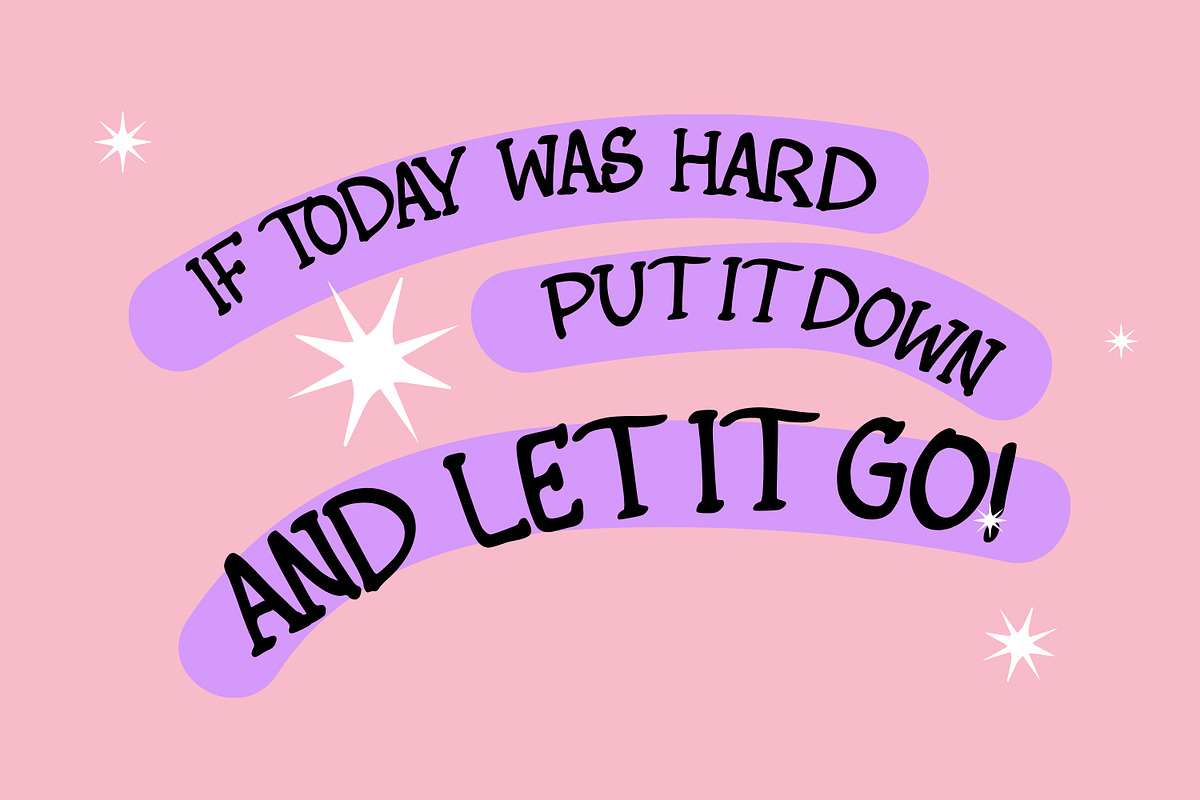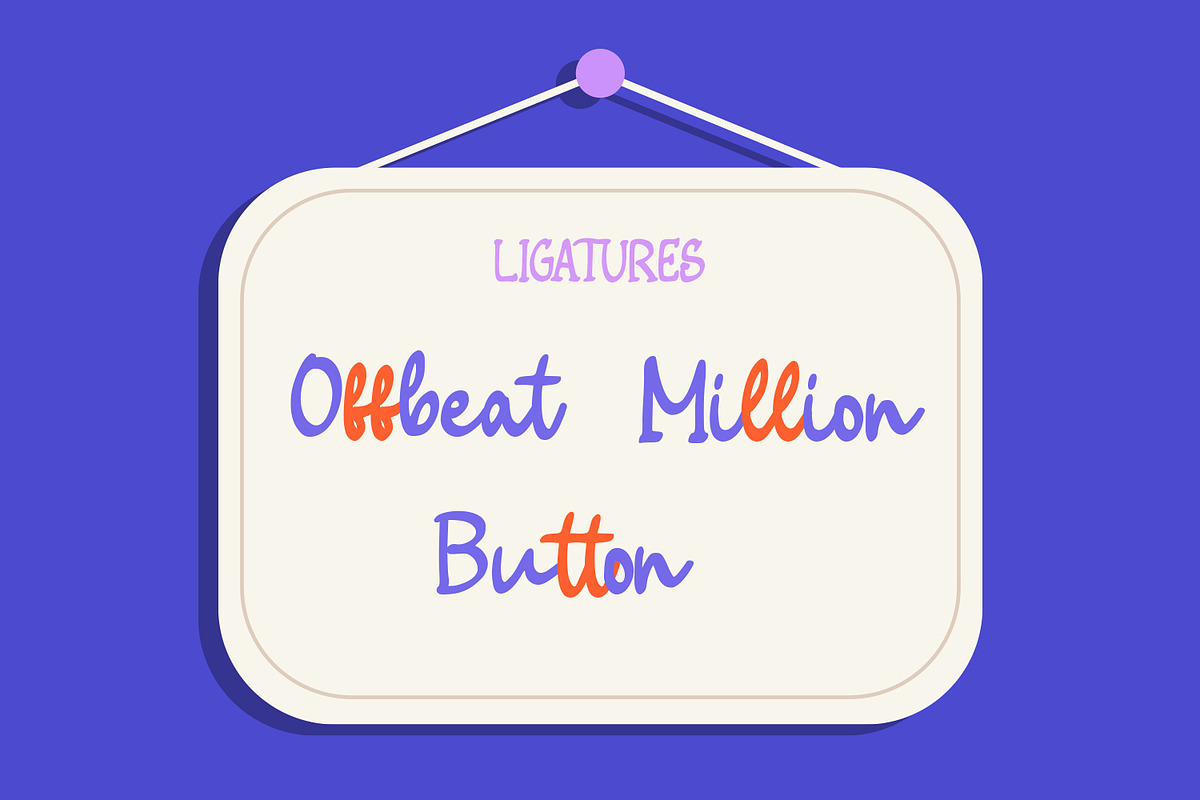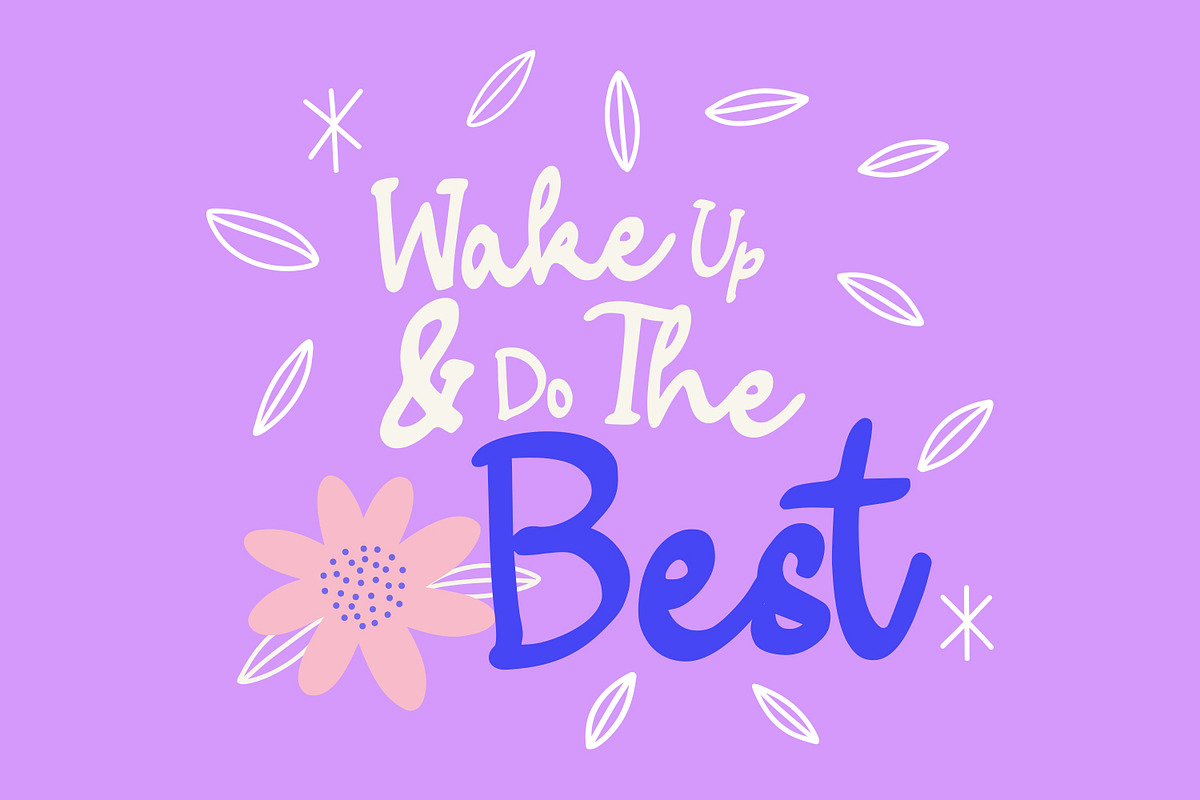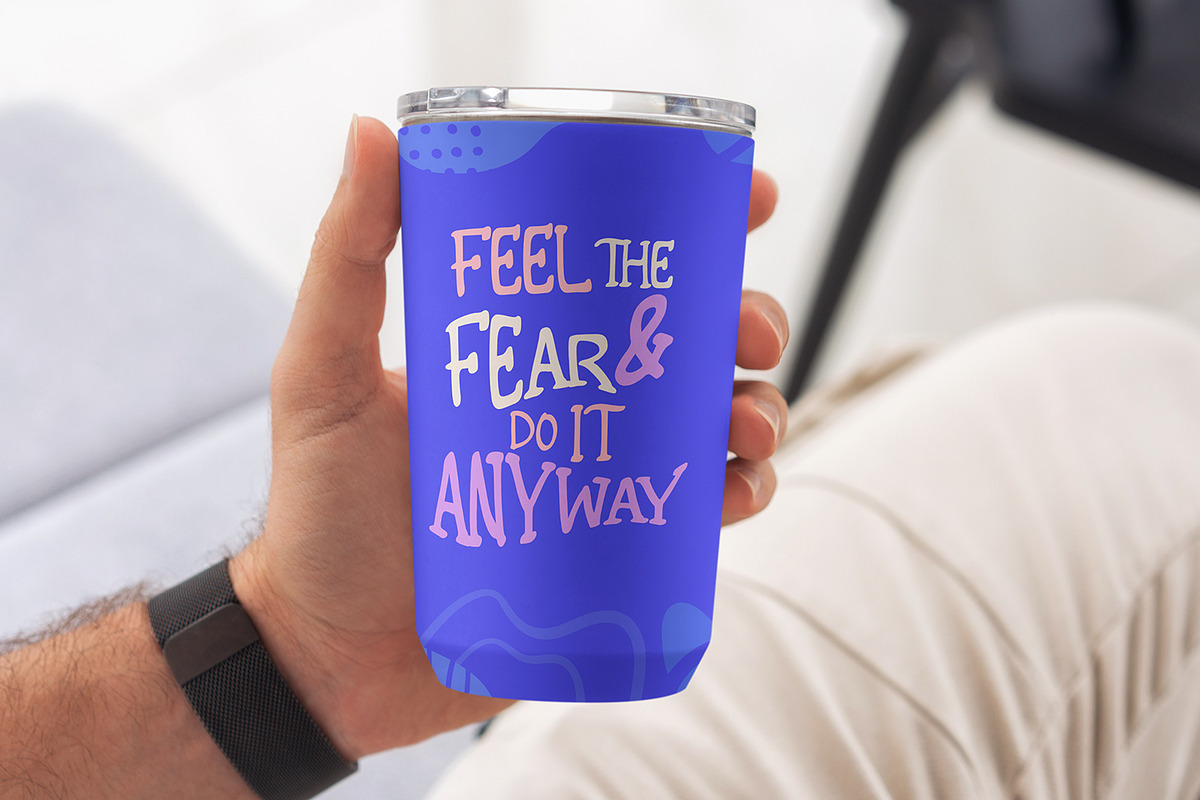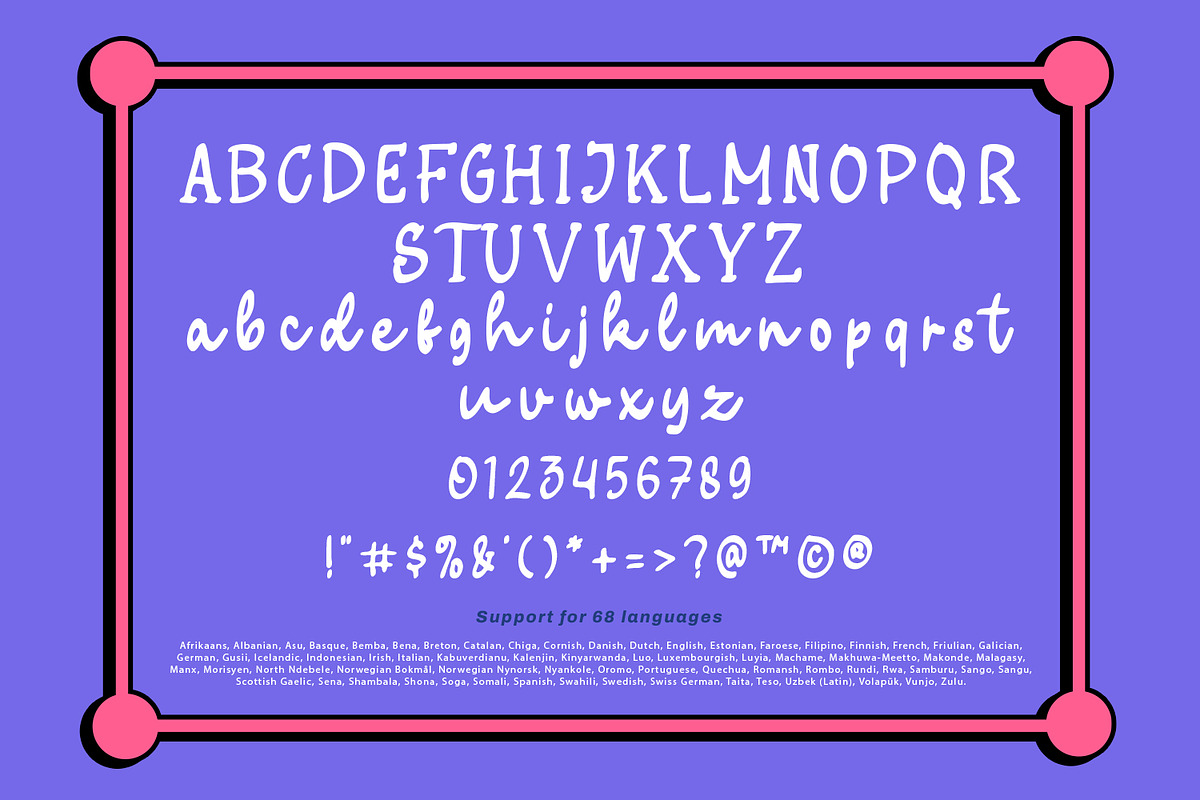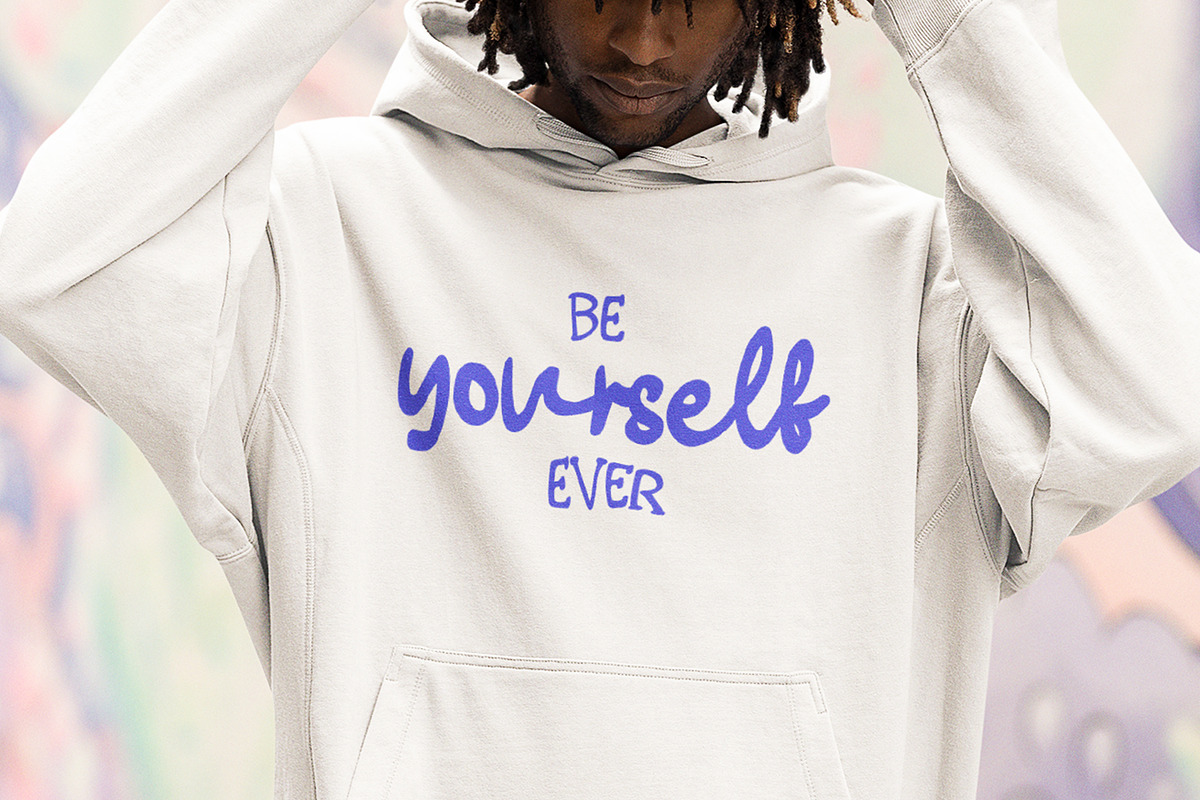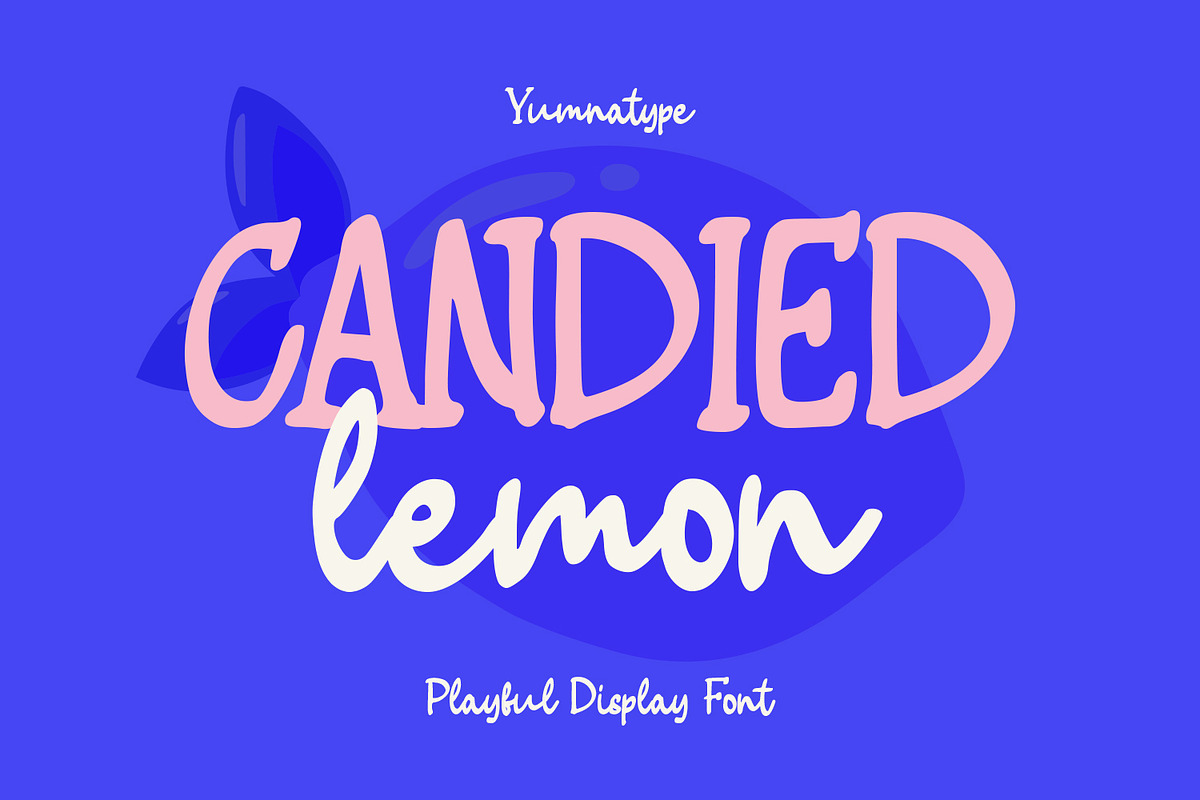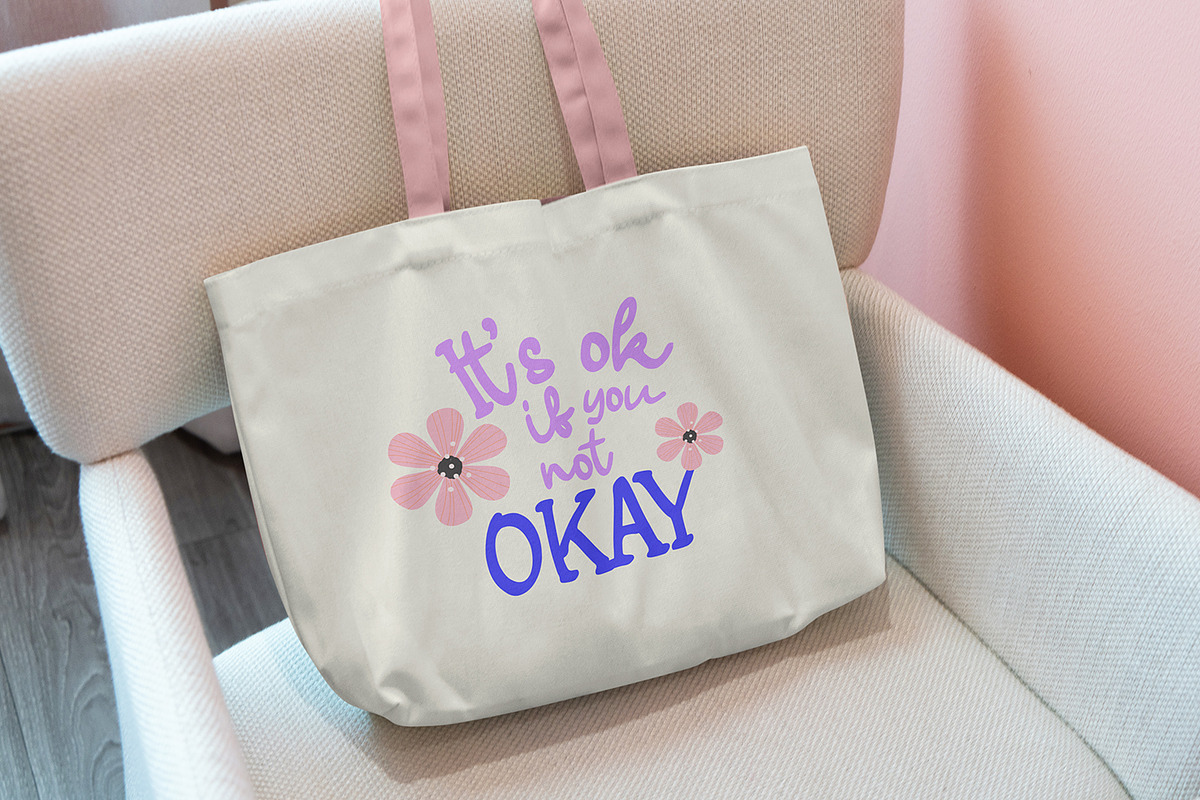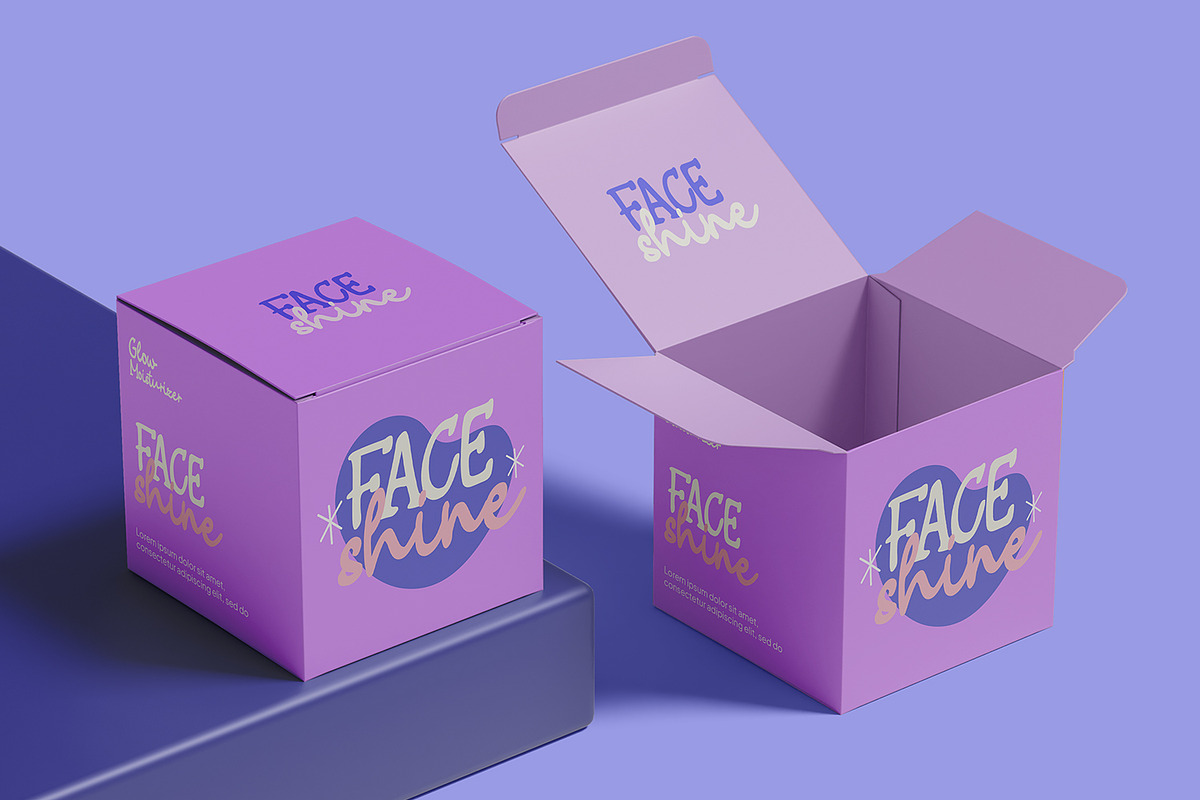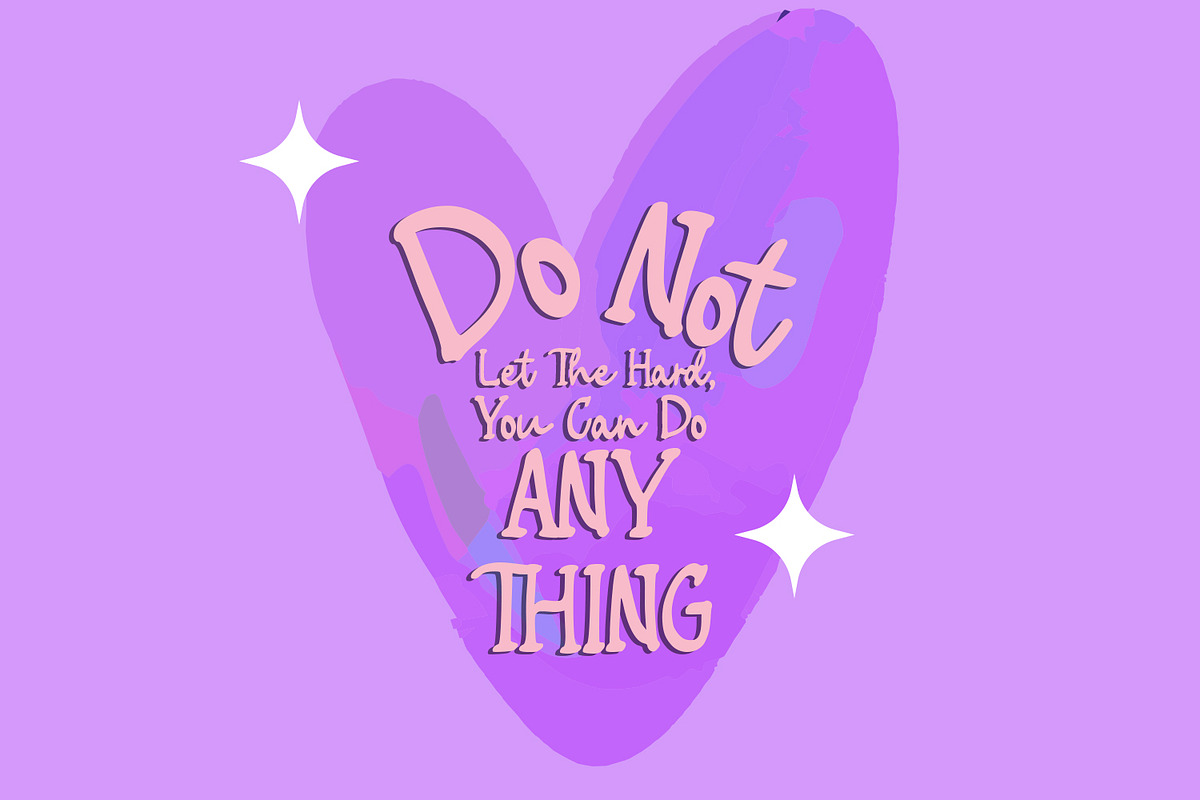
Candied Lemon
Candied Lemon is a delightful display font that adds a unique twist to your designs. The uppercase letters in Candied Lemon are designed with a slightly rounded shape, giving them a playful appearance. Each letter is meticulously crafted to maintain a consistent style, adding a sense of cohesion to your text while retaining its playful charm.
In contrast, the lowercase letters of Candied Lemon are designed to resemble handwritten script, adding a touch of authenticity and warmth to your text. Each letter flows seamlessly into the next, creating a natural and organic feel that is both inviting and engaging. In addition, enjoy the features here.
Candied Lemon fits in headlines, logos, posters, flyers, branding materials, print media, editorial layouts, and many more designs. Find out more ways to use this font by taking a look at the font preview.